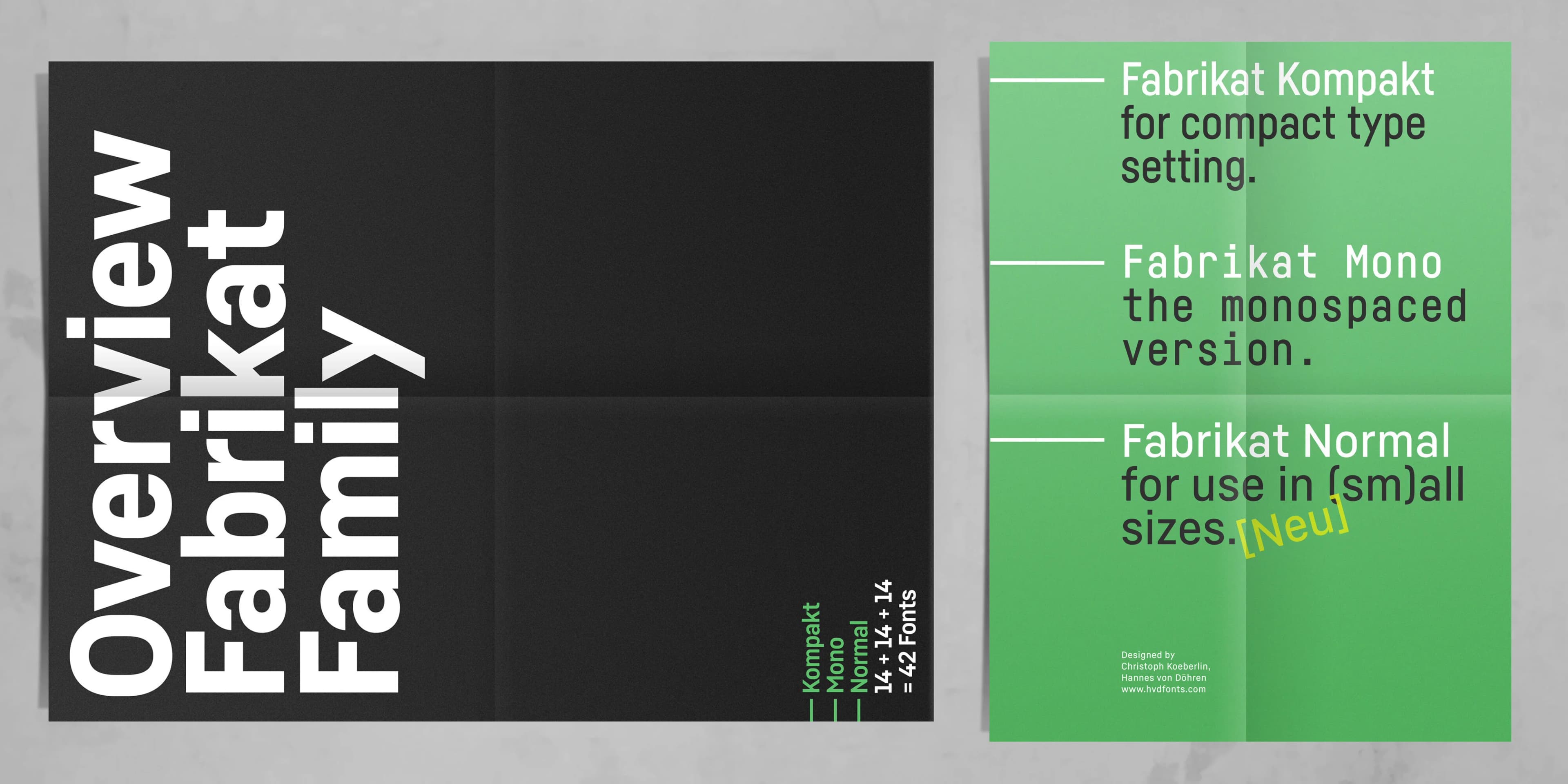
Fabrikat Normal
A geometric sans from HvD Fonts, positioned as the standard-width member of the Fabrikat family.
Fabrikat Normal is the core width variant of HvD Fonts' Fabrikat family, a geometric sans designed for clean, professional use across print and screen. The family spans a broad weight range with accompanying italics, giving it the range needed for extended typographic systems. Its geometric construction keeps it neutral and functional without being characterless.
Fabrikat is a geometric sans-serif family from HvD Fonts; the 'Normal' subfamily sits within a broader geometric tradition characterised by clean, constructed letterforms.